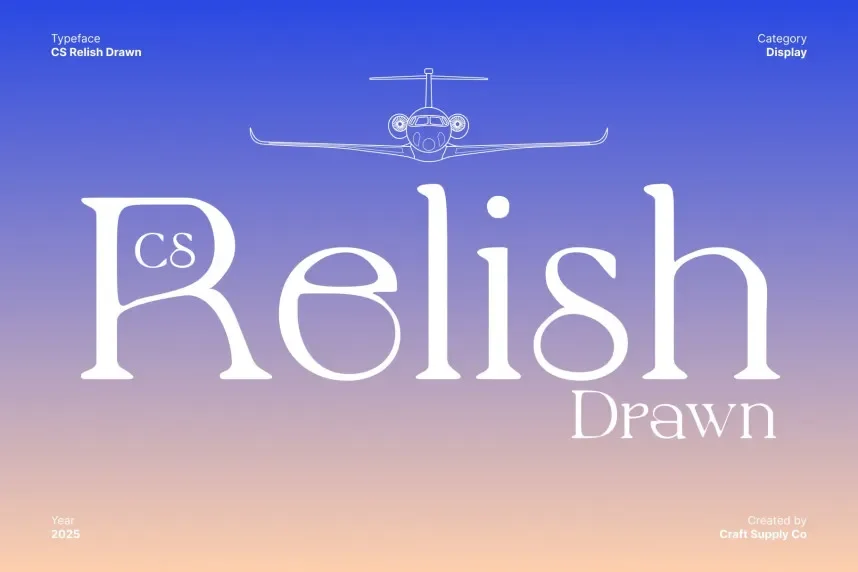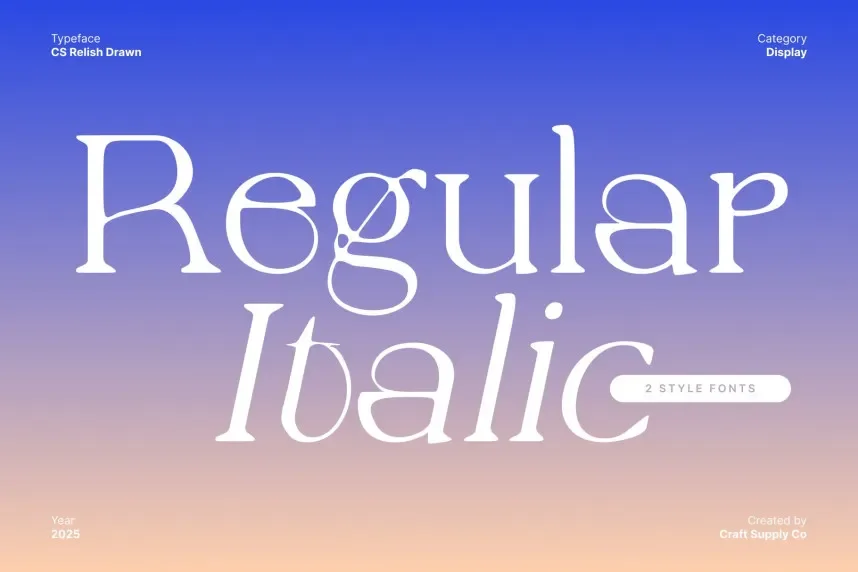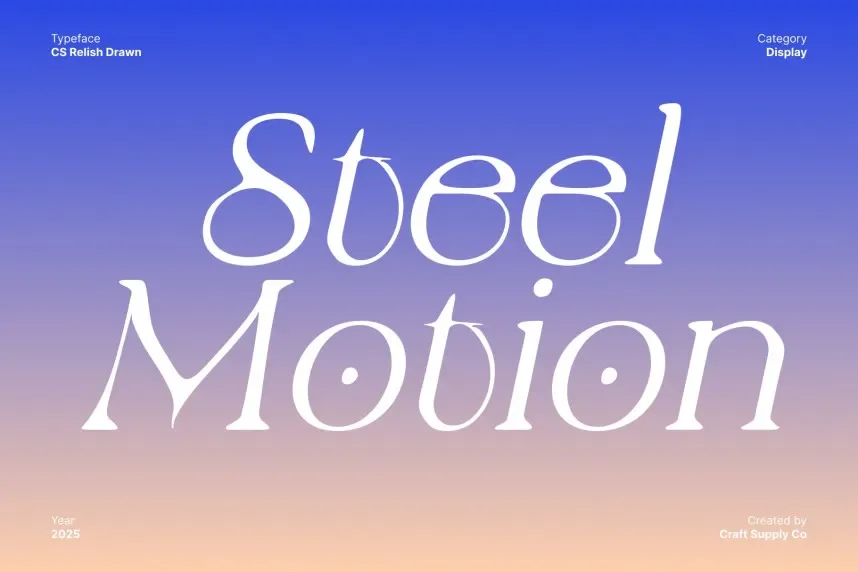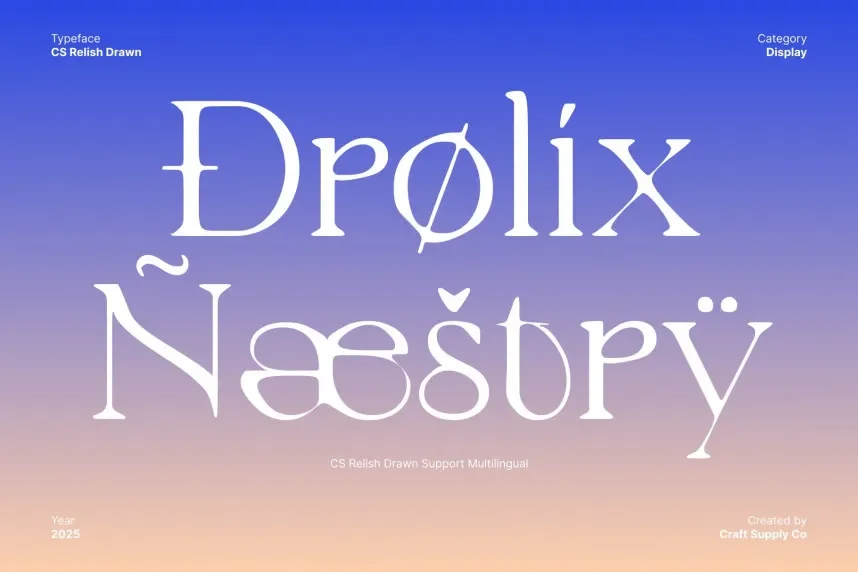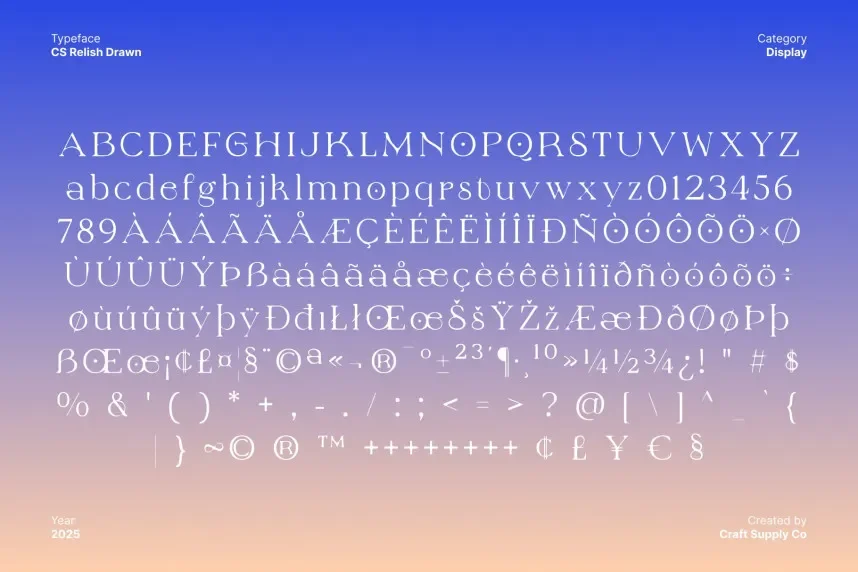
CS Relish Drawn Font is a dynamic, expressive typeface with irregular strokes and playful forms. Its bold design makes it ideal for projects that need an energetic, creative vibe, such as branding, posters, and event promotions.